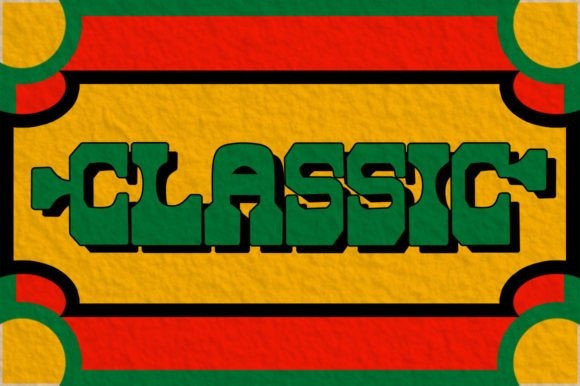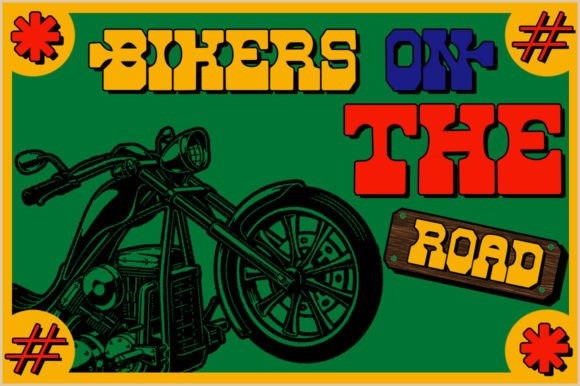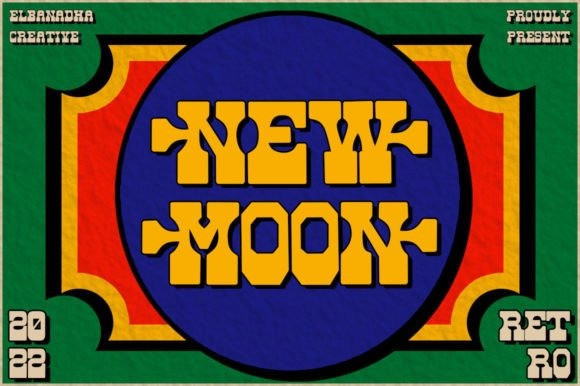
Newmoon Font
NEWMOON FONT – RETRO DISPLAY FONT is suitable for any projects such as logos, branding projects, homeware designs, product packaging, mugs, quotes, posters, shopping bags, t-shirts, book covers, name cards, invitation cards, greeting cards, labels, photography, watermark, special events, and all your other lovely projects that need a beautiful taste.
Classification: Retro / Vintage Fonts, Slab Serif Fonts